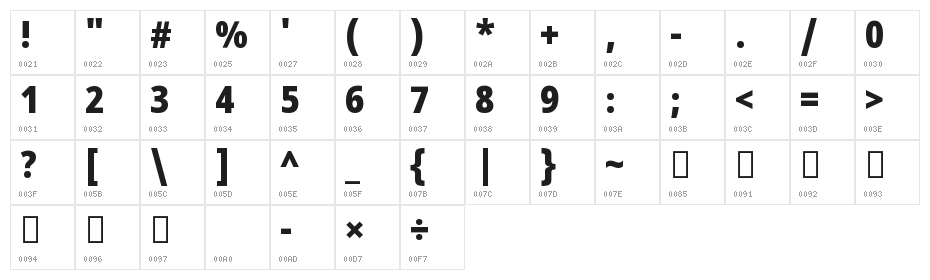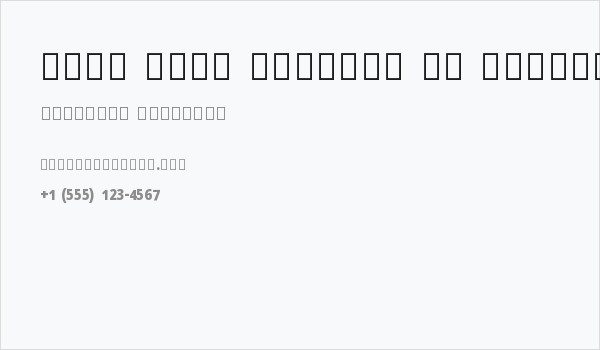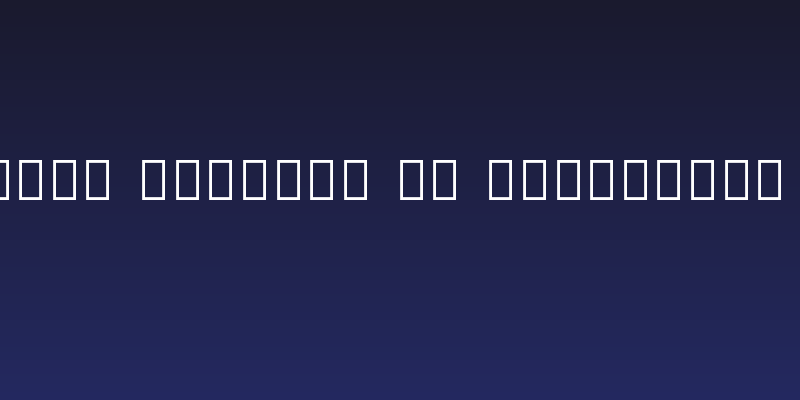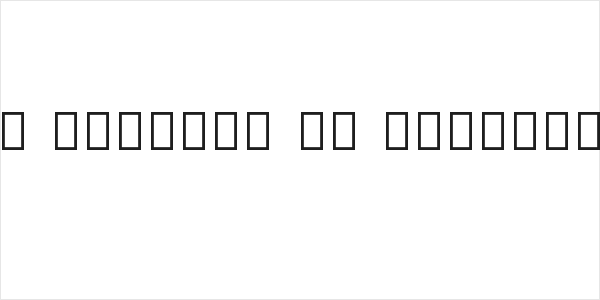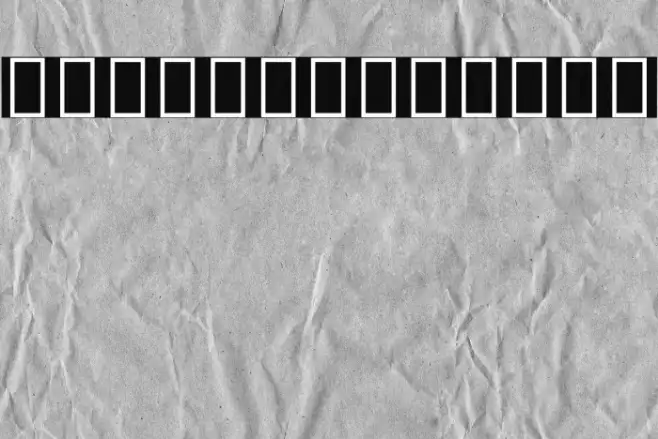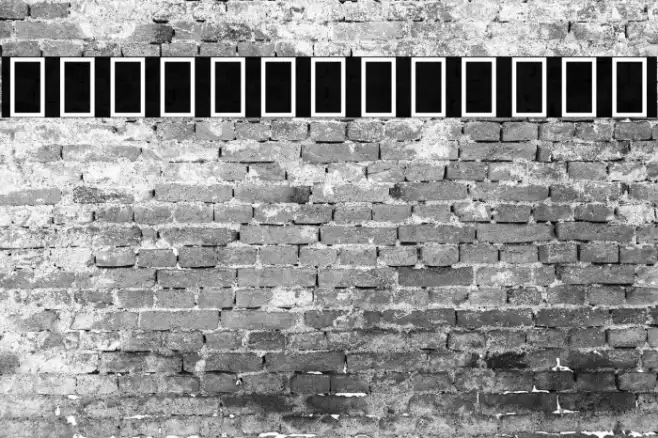
Noto Sans Sinhala UI Condensed Black Font
Noto Sans Sinhala UI Condensed Black Description
This font features a bold and robust design, characterized by its thick strokes and strong presence. It is a sans-serif typeface with a condensed width, making it ideal for space-saving applications while maintaining readability. The characters are uniform in height, with a modern and clean aesthetic that is suitable for digital interfaces. The numbers and special characters are designed with clarity in mind, ensuring they stand out distinctly. This font is particularly effective for headlines and titles where impact is essential.
| Use Case | Headlines, Digital Interfaces, Branding |
| Proposed Projects | Ideal for digital interfaces, headlines, posters, and branding materials where a strong visual impact is needed. |